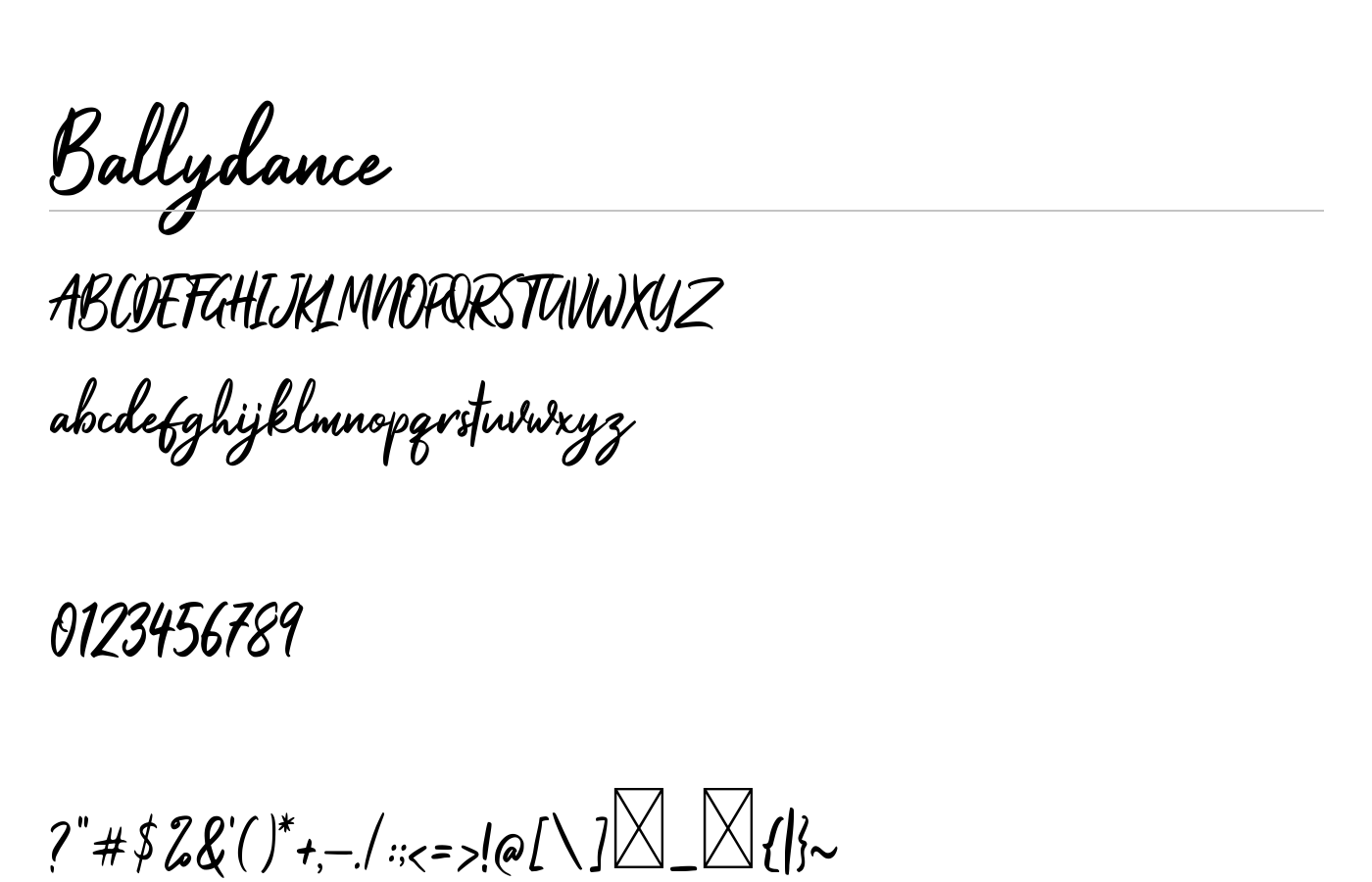
Ballydance is a lively, casual script font with a handwritten feel that combines elegant curves with a slightly playful, energetic touch. Its medium weight and fluid strokes make it ideal for projects that want to convey friendliness and creativity, such as invitations, branding, and social media graphics. This font works best in headline or display use where its stylish, personal character can truly shine.
Ballydance Font
About Ballydance Font
| Font family | Ballydance Font |
| Designer | Ikrar Bey Khubaib |